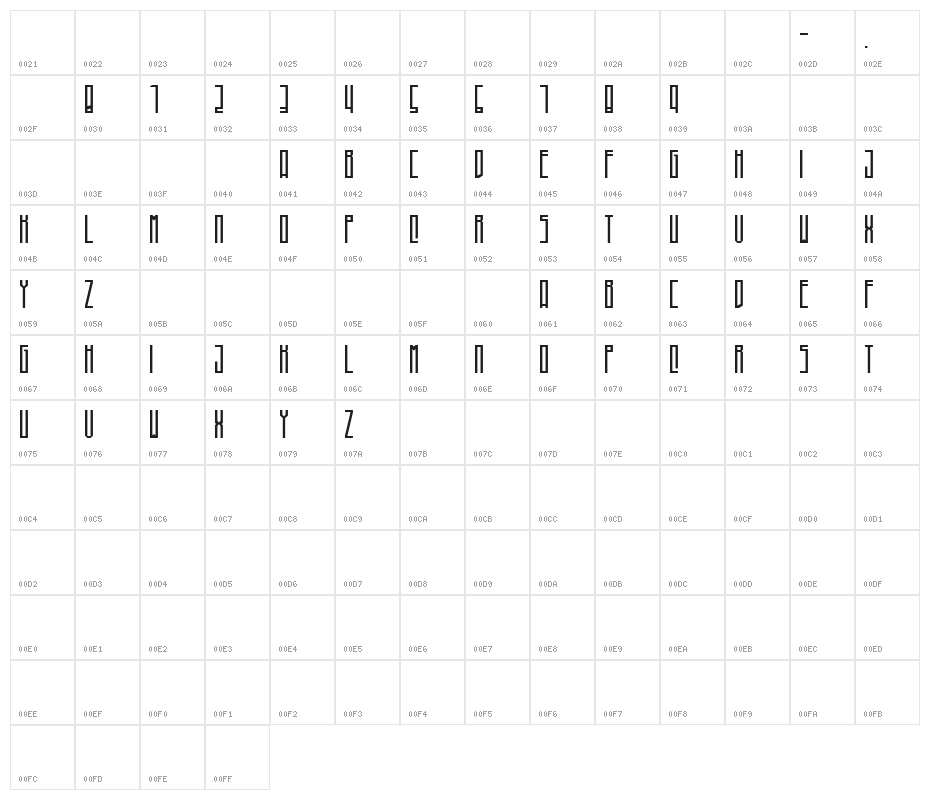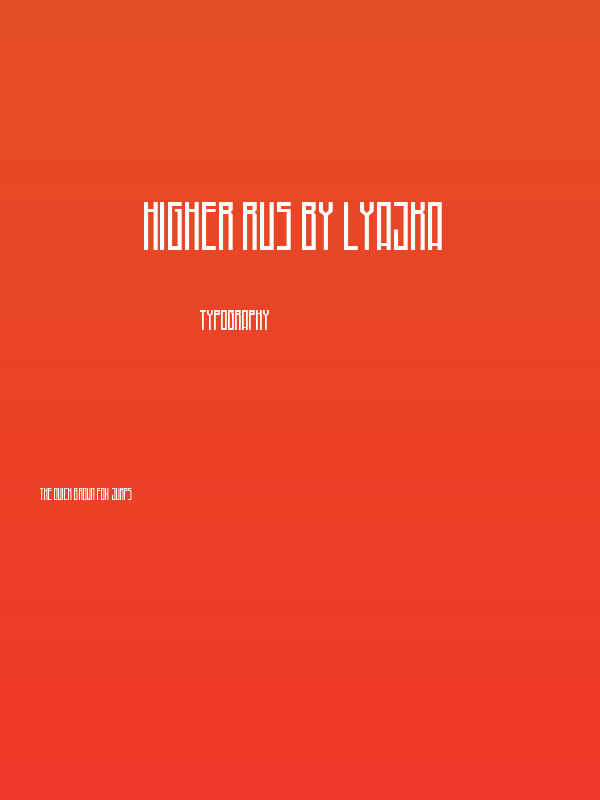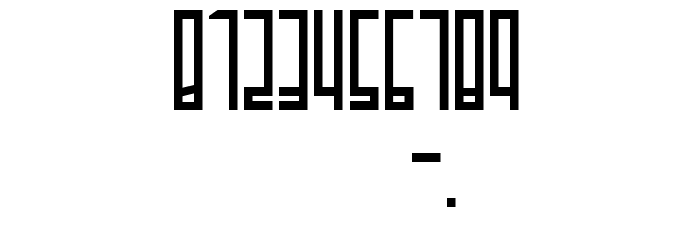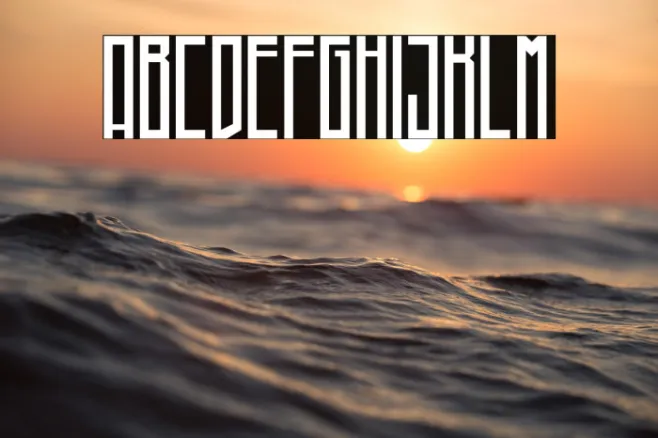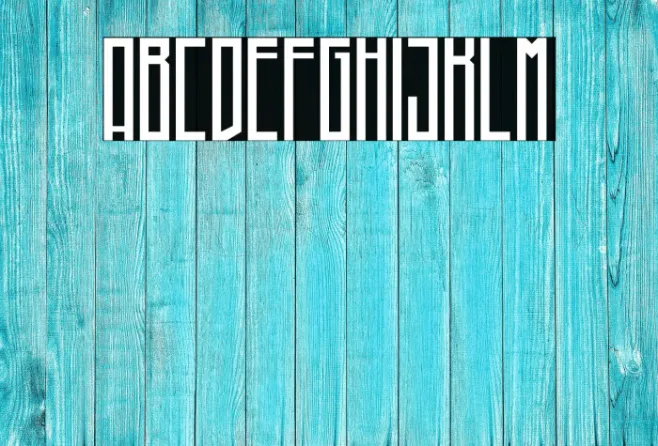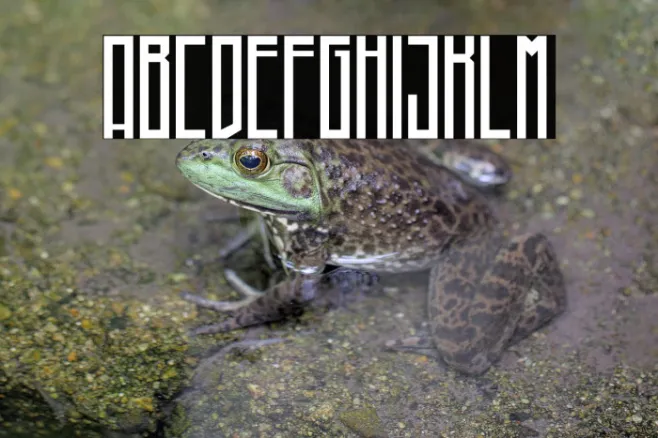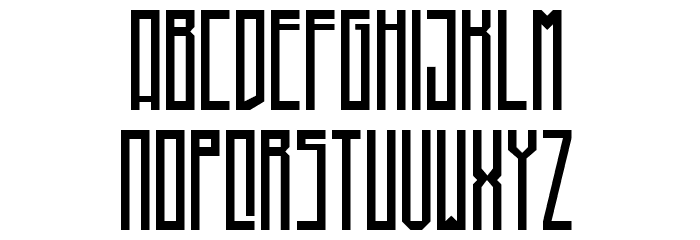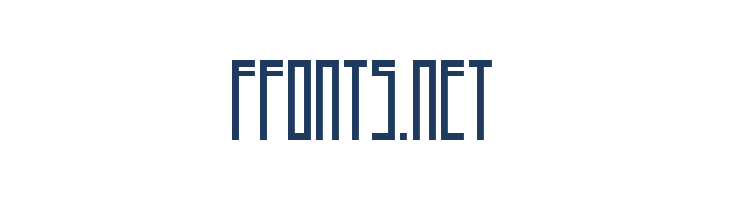
Higher(RUS BY LYAJKA) Font
Higher(RUS BY LYAJKA) Description
This font features a bold, geometric design with a distinctly modern and futuristic aesthetic. The characters are constructed with straight lines and sharp angles, giving them a rigid and structured appearance. The uppercase letters are tall and narrow, while the lowercase letters maintain a similar height, creating a uniform look across the typeface. The numbers and special characters follow the same design principles, ensuring consistency throughout. The font's unique style makes it stand out, with a focus on verticality and symmetry. It is well-suited for projects that require a strong visual impact and a contemporary feel.
| Proposed Projects | Ideal for branding, posters, album covers, and any project needing a modern, impactful typeface. |